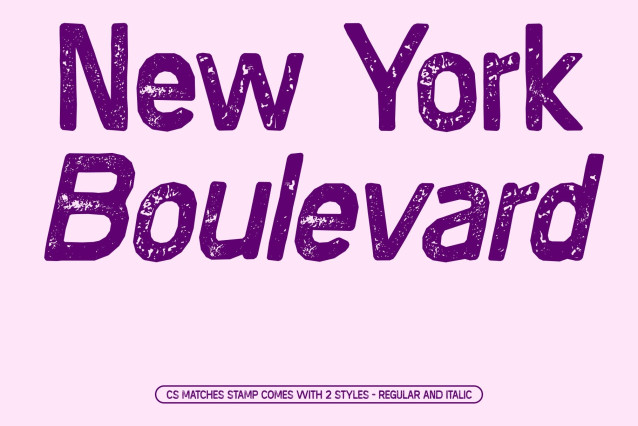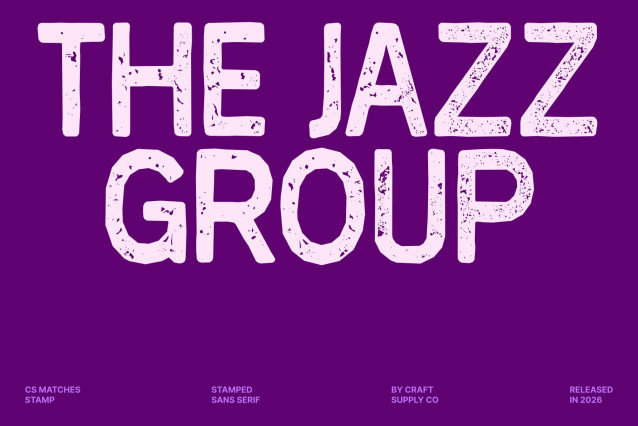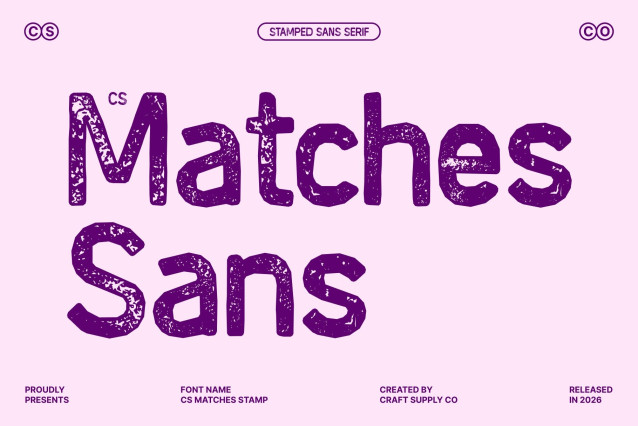
CS Matches Stamp Font
CS Matches Stamp – Display Sans Serif Font: Where Playfulness Meets Creative Character
Cheerful Design with Unique Letterforms
This is a cheerful sans serif font designed with uniquely crafted letterforms that bring a fresh and lively personality to any design. Each character stands out with its own distinctive shape, creating a playful rhythm that feels dynamic and engaging. This originality gives designers the freedom to explore bold and unconventional visual ideas.
Distinctive Style with Creative Energy
Built to inspire creativity, this font delivers a vibrant and innovative typographic experience. Its unconventional forms break away from traditional structure, making it perfect for projects that aim to feel expressive and fun. The font radiates energy and charm, turning simple text into eye-catching visual statements.